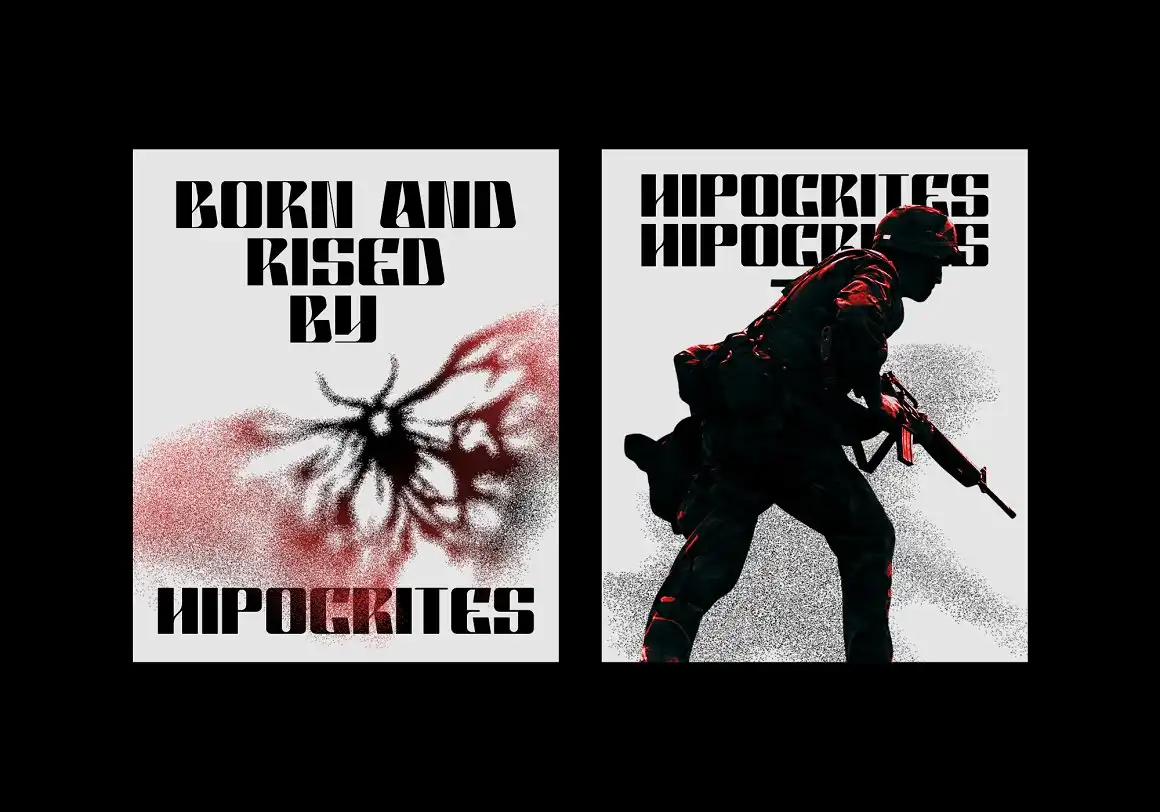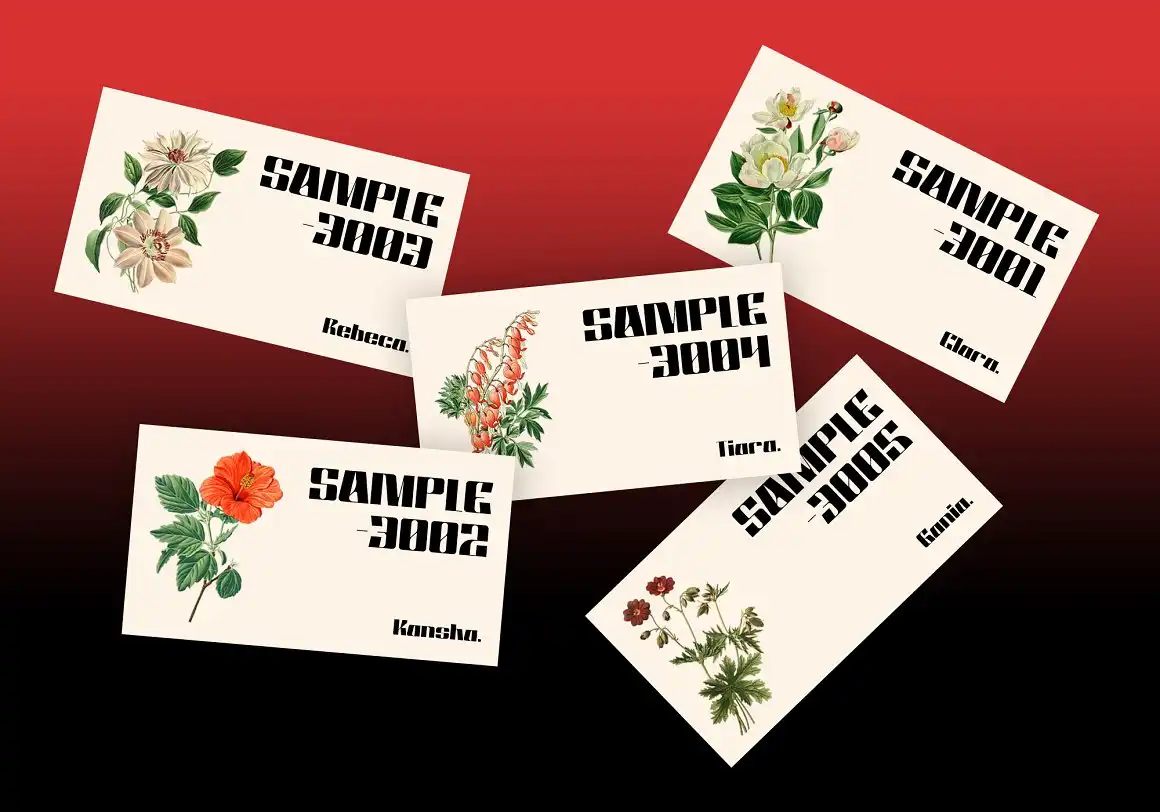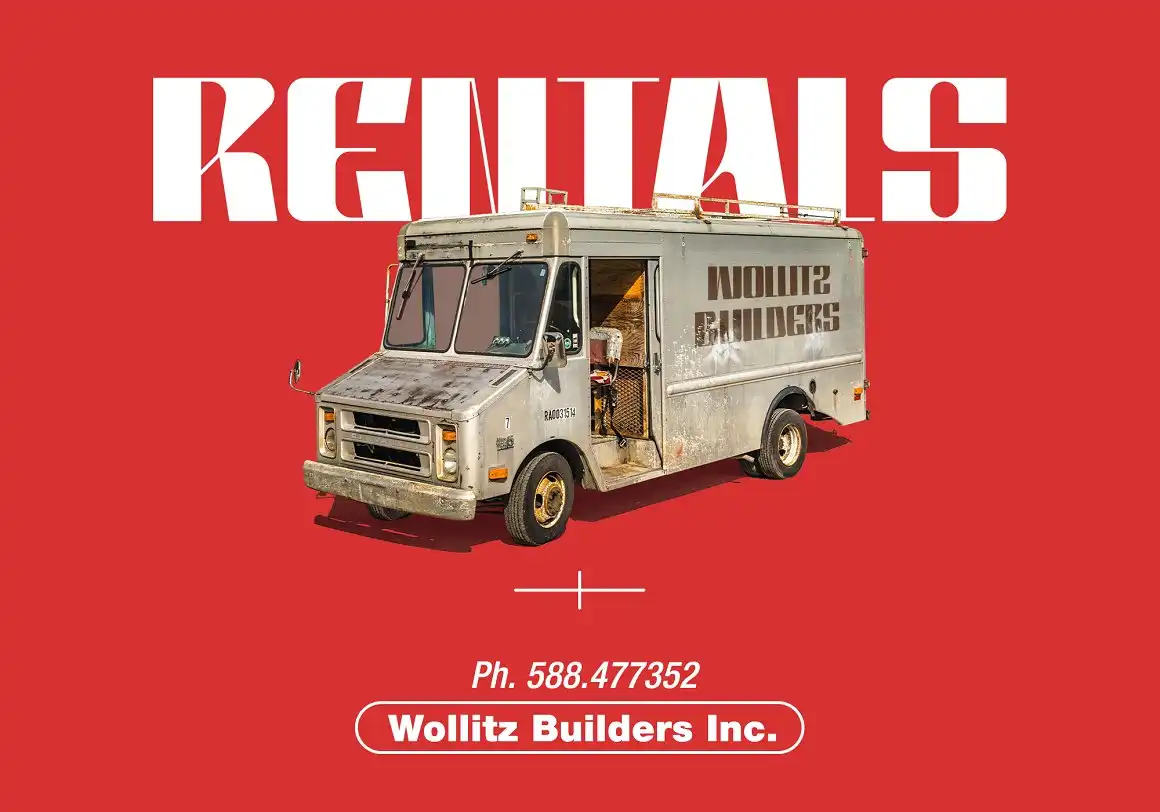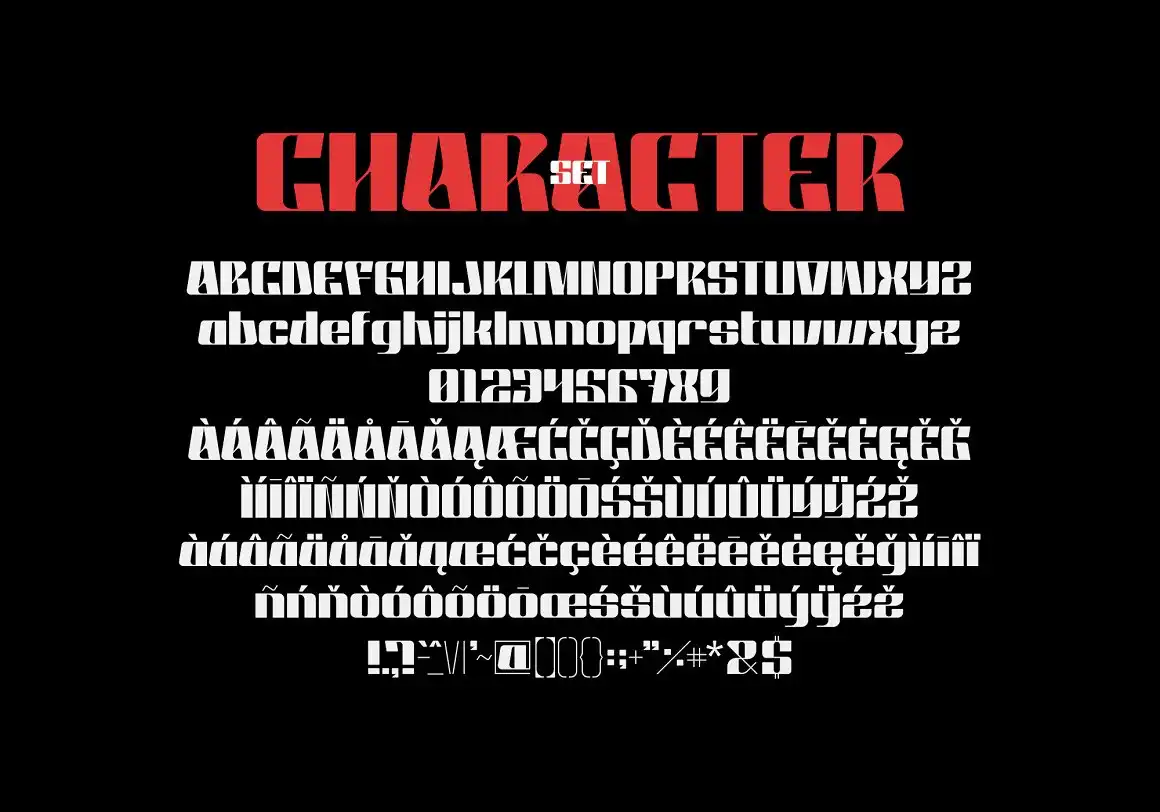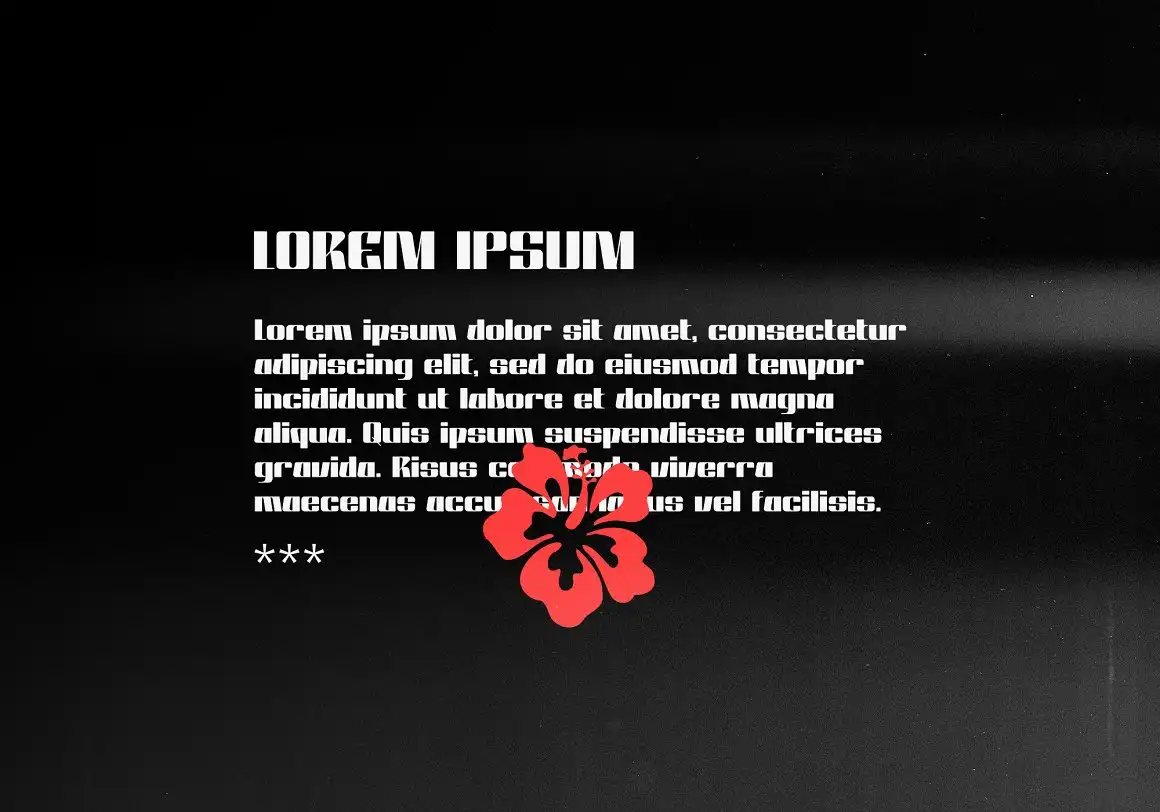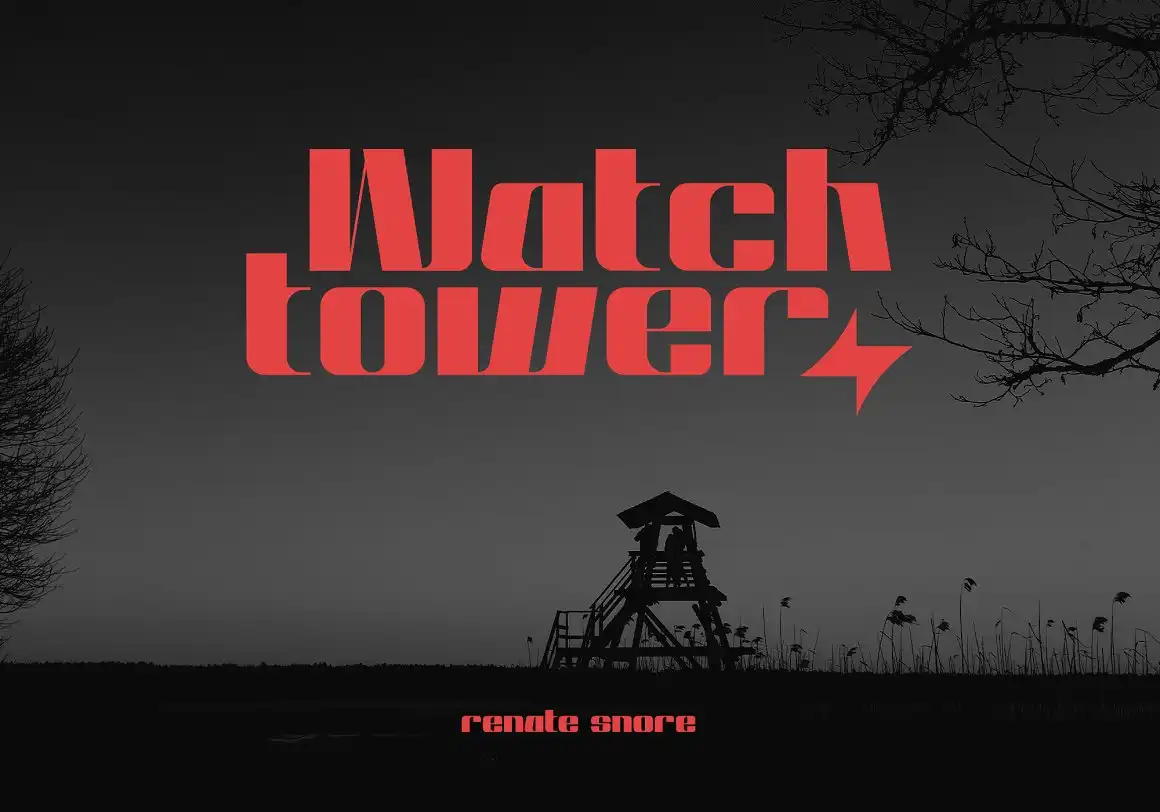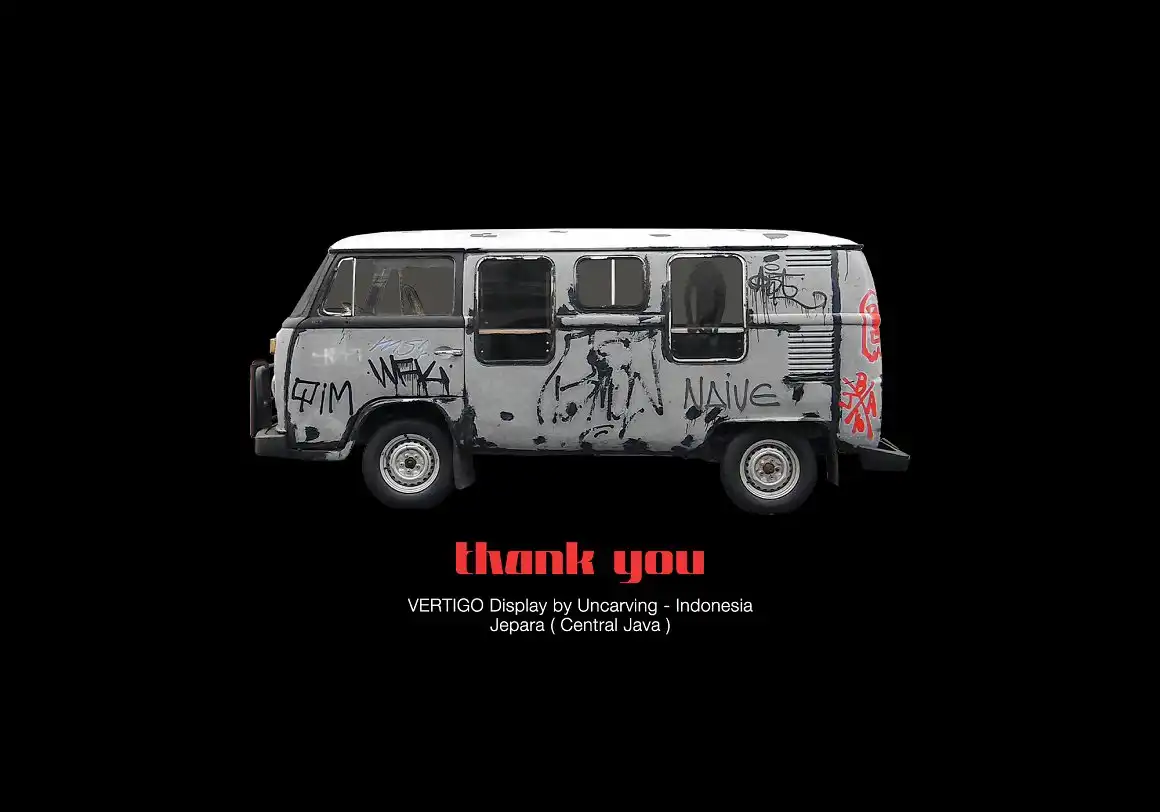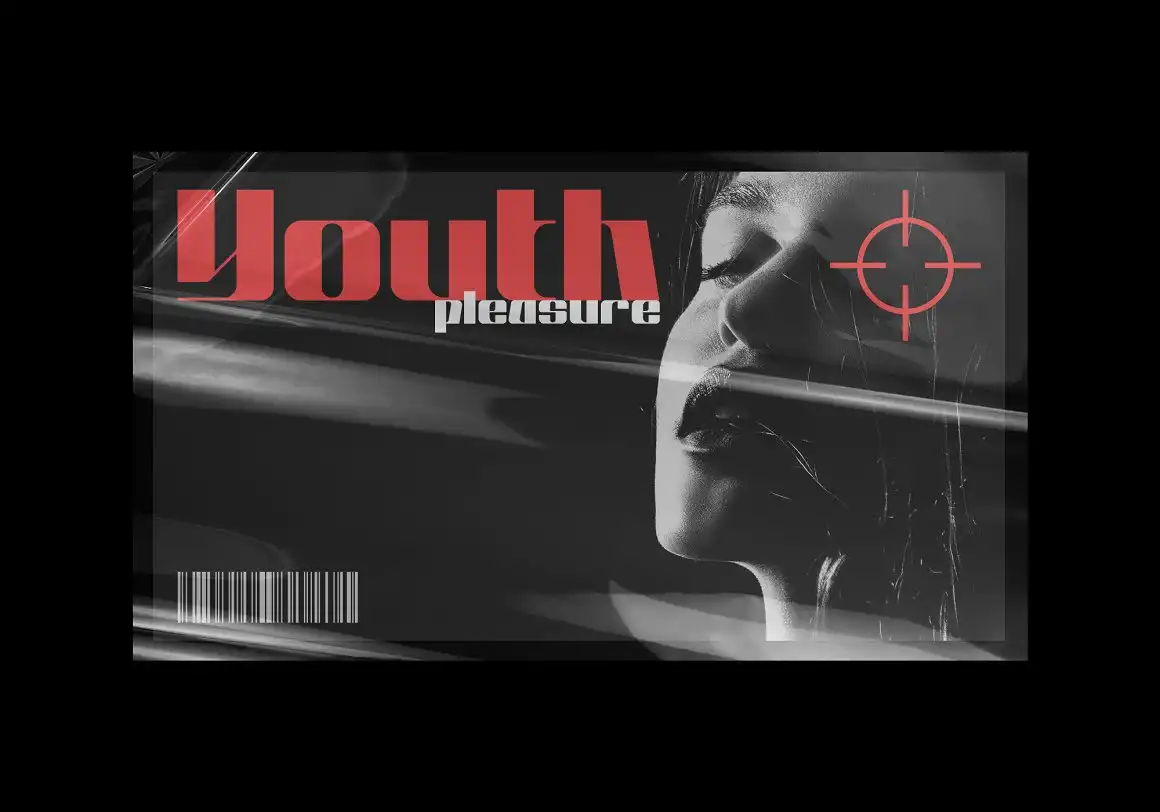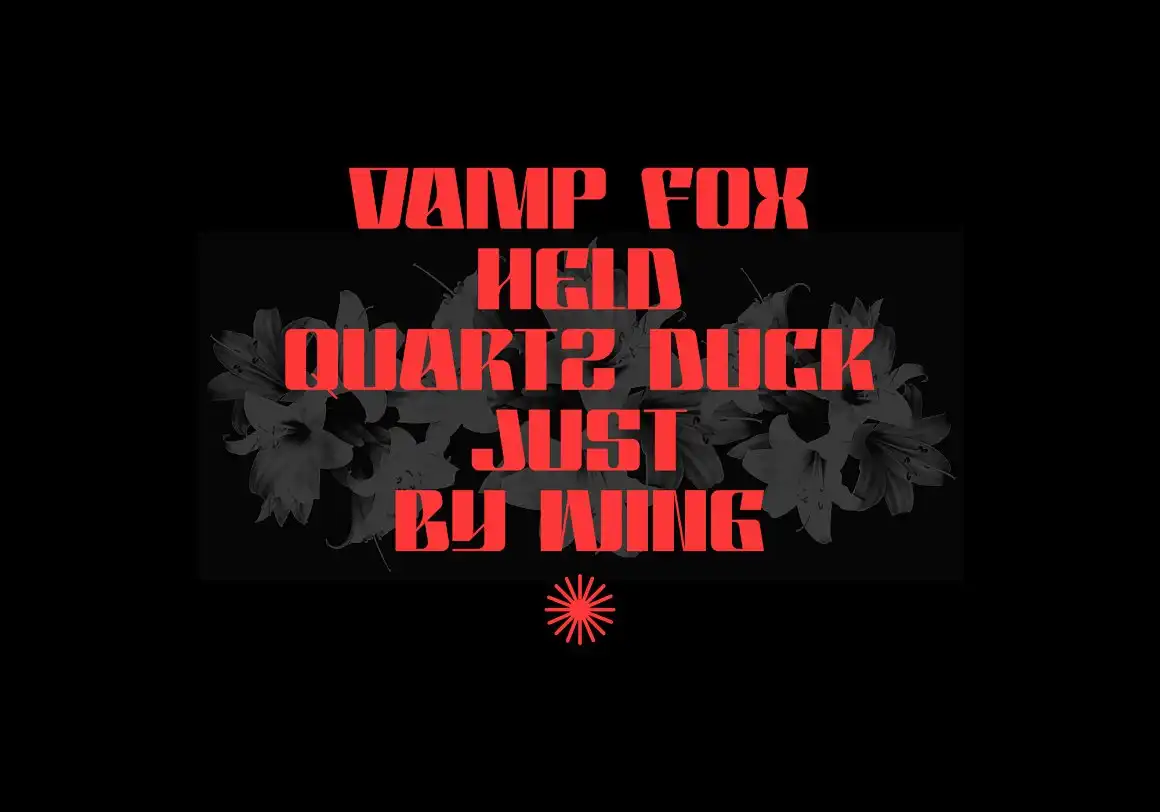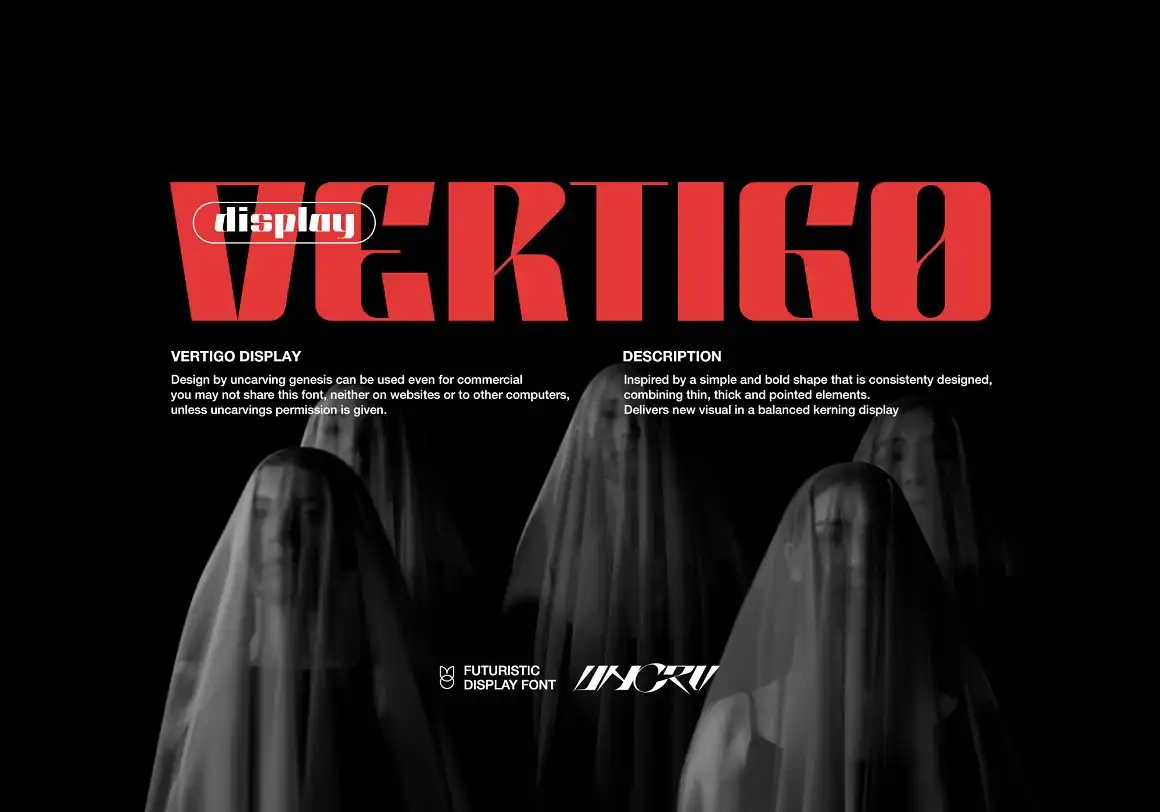
This digital download features the stunning Vertigo – Display Font, a bold and modern typeface that adds a touch of creativity to your designs. With instant access, you can start crafting your projects right away! ✨ Whether you’re designing eye-catching posters or sleek branding, this font will make your work stand out.
Vertigo is a captivating display font designed by uncarving. It showcases a unique balance of thin, thick, and pointed elements, creating a visually striking experience. This font is perfect for those moments when you want your text to grab attention while maintaining readability. Say goodbye to feeling dizzy when looking at a screen; with Vertigo, your designs will be both stylish and legible! 📱💫
- Bold Design: Captivates the viewer’s attention and enhances your message.
- Modern Aesthetic: Complements contemporary design trends, making it ideal for various projects.
- Balanced Kerning: Ensures readability, even in larger text sizes, reducing dizziness when looking at a screen.
This font is a fantastic choice for:
- Graphic designers looking to make a statement
- Marketers creating bold advertisements
- Web designers aiming for a modern look
- Anyone wanting to add a unique touch to their projects!